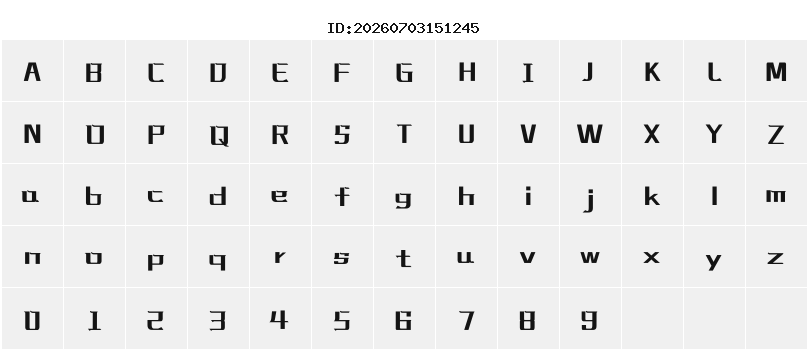
184-上首月牙体 Preview
• Font Name: 184-上首月牙体
• Font ID: 184-SSYueYaTi:Version 6.00
• Full Font Name: 184-上首月牙体
• Version: Version 6.00 December 25, 2023
• PostScript Name: 184-SSYueYaTi
• Character Count: 7569
• Manufacturer: 上首造字
About 184-上首月牙体.ttf
184-上首月牙体.ttf is a modern, elegant sans-serif font designed for ultimate readability and visual harmony. Perfect for branding, headlines, web design, and print materials.